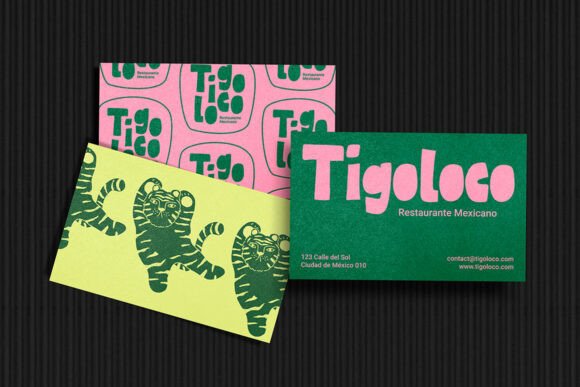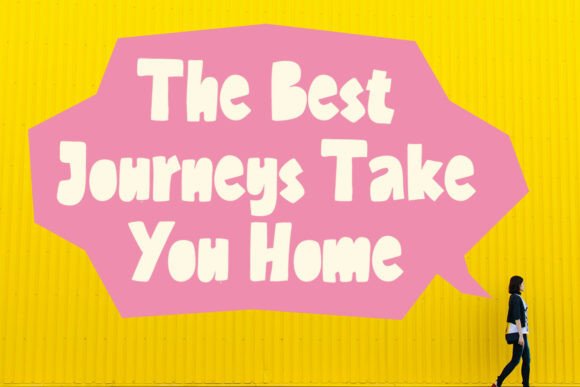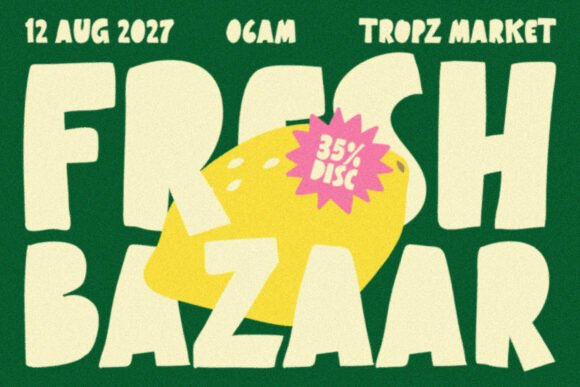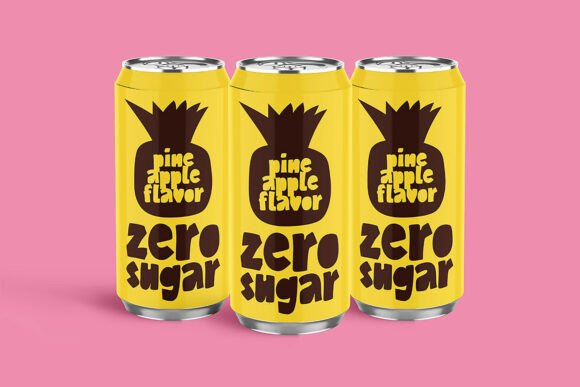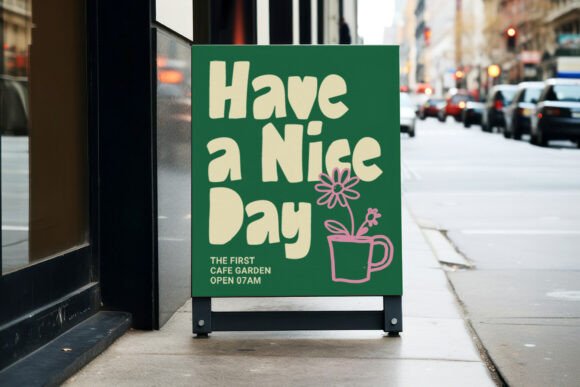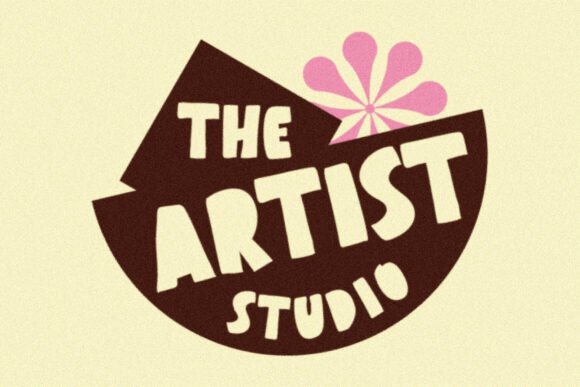
The Playful Bristal Font: A Designer’s New Best Friend
I’ll never forget the time I was working on a children’s book project, and I just couldn’t find the right font to match the playful illustrations. The client wanted something fun, eye-catching, and whimsical, but not too over-the-top. I spent hours scouring font websites, but nothing seemed quite right. That was until I stumbled upon Bristal, a delightful cut-out display font that instantly brought the project to life. In this article, I’ll share my love for Bristal, its features, and how to make the most of it in your designs.
An Honest Review of Bristal
What I Love About Bristal ✨
- ✅ Unique, handcrafted feel that adds warmth to any design
- ✅ Bold, quirky personality that’s perfect for making a statement
- ✅ Inspired by retro charm and paper textures, giving it a nostalgic vibe
- ✅ Extremely versatile and suitable for various creative projects, from posters to branding
- ⚠️ Some characters may appear a bit distorted due to the cut-out design, which can be limiting for body text
- ⚠️ May not be the best choice for very small font sizes or detailed designs
- Experiment with OpenType features, such as stylistic alternates, to add visual interest
- Explore the glyphs and OpenType features to customize your text
The Story Behind Bristal
Bristal was designed by Get Studio, a team of creatives passionate about crafting unique and inspiring fonts. The story goes that the designers were inspired by the tactile feel of handcrafted paper textures and the retro charm of vintage posters. They wanted to create a font that would bring a smile to people’s faces and add a touch of whimsy to any design.
| What is Bristal best used for? | Bristal is perfect for creative projects, such as posters, children’s books, branding, and more, where a playful, eye-catching font is needed. |
| Is Bristal suitable for body text? | While Bristal is amazing for headlines and titles, it may not be the best choice for body text due to its cut-out design and bold personality. |
| Does Bristal support OpenType features? | Yes, Bristal supports OpenType features, such as stylistic alternates and glyphs, which can be used to add visual interest to your designs. |